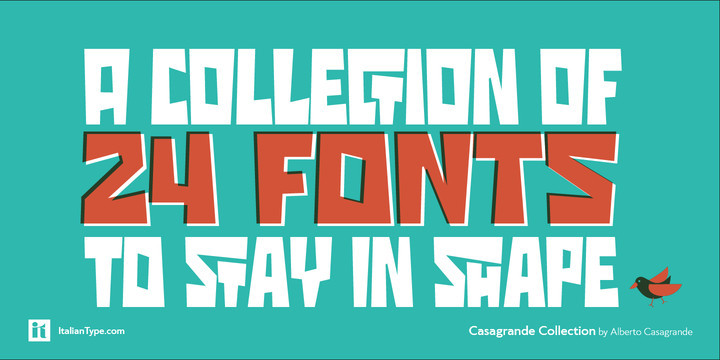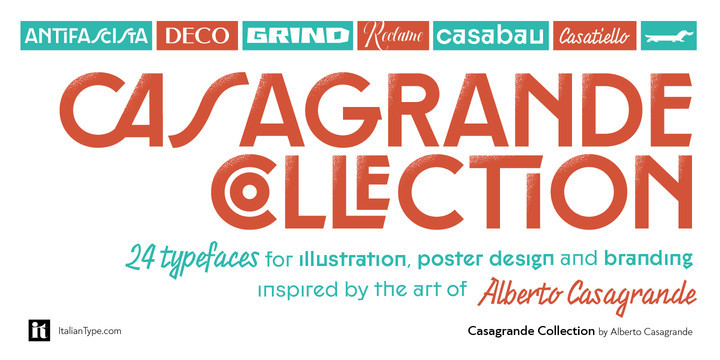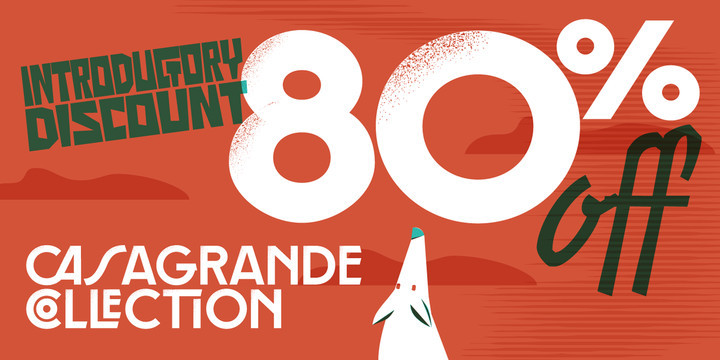
Casagrande Font
Casagrande Collection has been designed in 2020 by the Italiantype Team (Manuel Alvaro, Valentino Coppi and Mario De Libero), working in close collaboration with Italian lettering artist, illustrator and calligrapher Alberto Casagrande, with help from the Zetafonts Team (Francesco Canovaro, Andrea Tartarelli and Cosimo Lorenzo Pancini).
The goal of the project was to use as inspiration Alberto’s colorful, vintage themed digital illustration style to develop a suite of closely related typefaces that, used together, would allow designers to replicate the nostalgic charme of Italian poster and product design from the thirties and the forties. Two color overprints, coarse dithering, handmade calligraphy, reminiscences of art deco, hints of modernism and pop culture references: all this and more mixed in a exuberant and playful collection, created with illustrators, poster artists and book cover designers in mind.